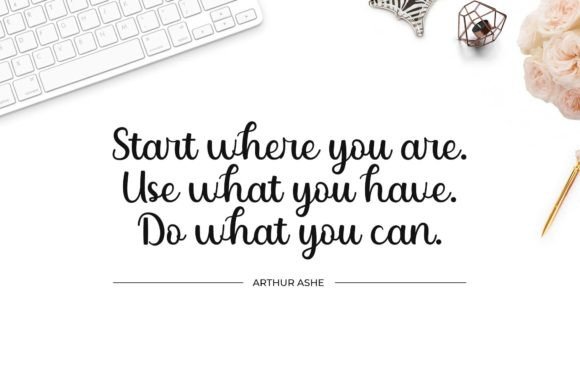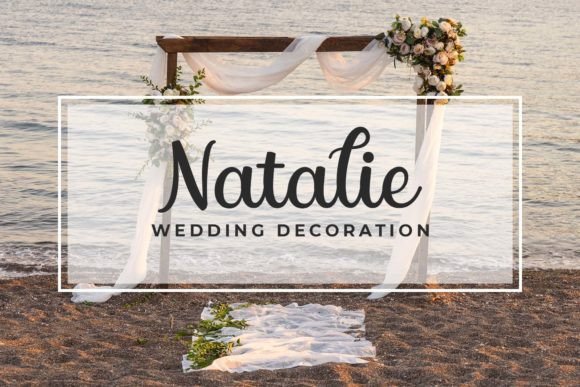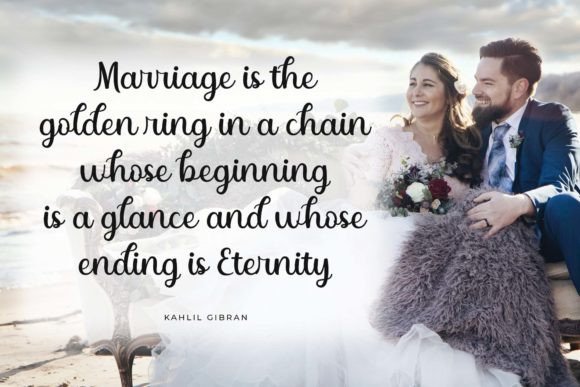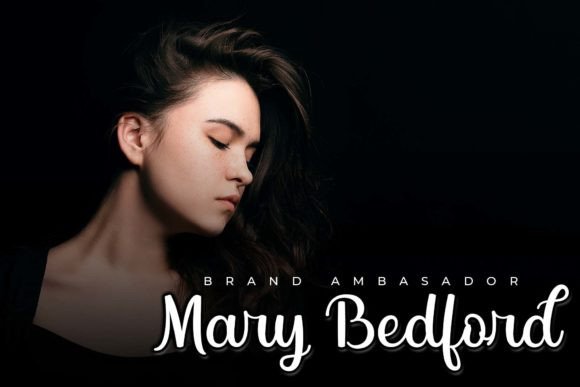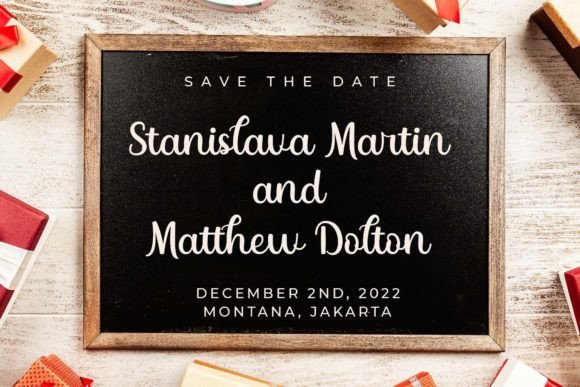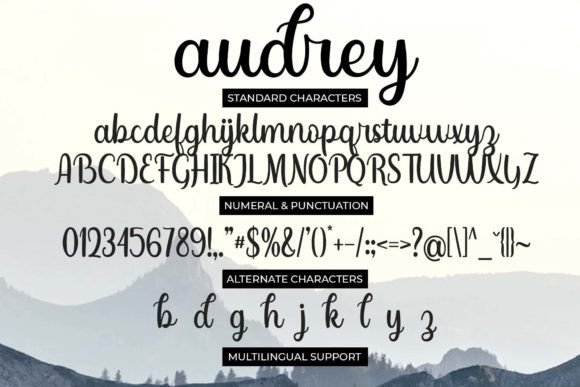
The Audrey Font: A Timeless Calligraphy Script for Creative Projects
I still remember the time I was working on a wedding invitation design project, and my client specifically asked for a font that exuded elegance and sophistication. I scoured through my font library, but nothing seemed to fit the bill. That’s when I stumbled upon the Audrey font, a beautiful handwritten script font with a classic calligraphy style. It was love at first sight! 💕
The Audrey font has since become a staple in my design toolkit, and I’m excited to share its beauty with you. In this article, we’ll explore what makes Audrey special, its uses, and how to make the most of its features in various design platforms.
An Honest Review of Audrey Font
What I Love About Audrey ✨
• ✅ Elegant and sophisticated: Audrey’s classic calligraphy style makes it perfect for formal events like weddings, anniversaries, and graduations.
• ✅ Versatile: This font works great on various design materials, including greeting cards, birthday cards, and social media graphics.
• ✅ Easy to read: Despite its ornate style, Audrey is surprisingly legible, making it suitable for both headings and body text.
• ✅ Highly customizable: With OpenType features and glyphs, you can experiment with different ligatures, swashes, and alternates to create unique designs.
While Audrey is an excellent font, it’s not without its limitations. ⚠️ Some users may find that the font is not as flexible for very short or very long texts, and it may not be the best choice for body text in lengthy documents. However, for display purposes or short texts, Audrey shines.
The Story Behind Audrey Font
Audrey was designed by a talented typographer who drew inspiration from classic calligraphy styles. The font’s creator aimed to craft a script that was both elegant and legible, perfect for a wide range of creative projects. Although the font’s exact backstory might be shrouded in mystery, its beauty and versatility have made it a favorite among designers and crafters.
Q: What type of projects is Audrey best suited for? A: Audrey is perfect for formal events like weddings, anniversaries, and graduations, as well as creative projects like greeting cards, birthday cards, and social media graphics.
Q: Is Audrey a difficult font to read? A: Despite its ornate style, Audrey is surprisingly legible and suitable for both headings and body text.